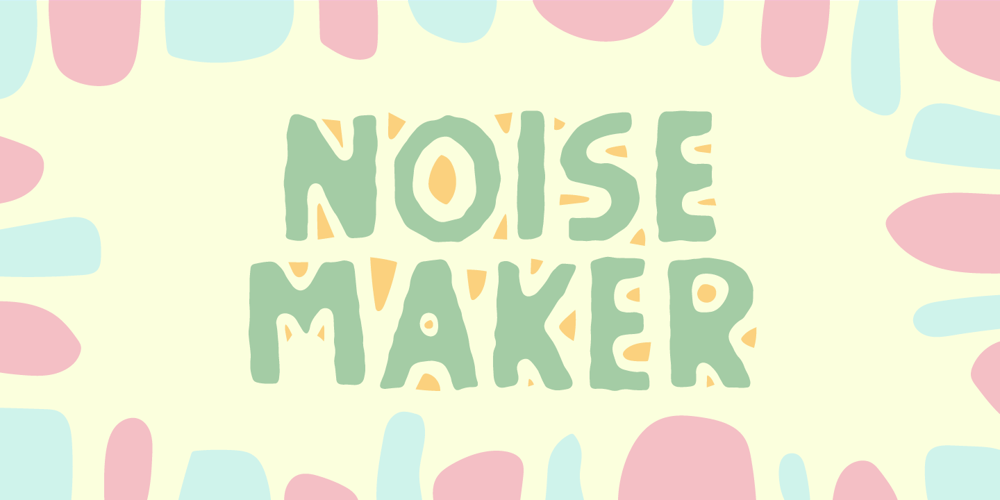
Noise Maker
Noise Maker font
Noise Maker Font Family was designed by Jakob Fischer and published by Bogstav. Noise Maker contains 4 styles and family package options. Can noise be a beautiful sound?Well, I guess…because the other day when I was playing the good old Bleach album by Nirvana (which I consider lovely grunge music!) my wife yelled “Could you stop that noise?!” – and I answered “What noise?!” – ha-ha-ha!Anyway, I finished this font while listening to that particular lovely noise, and I knew that this crunchy, grungy, handmade and full of contextual alternates and multilingual font had to be named something with the word “noise” in it!